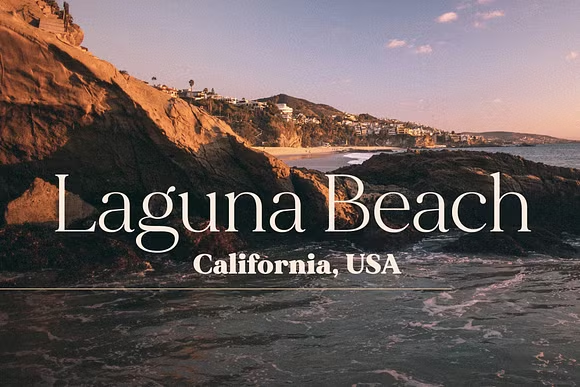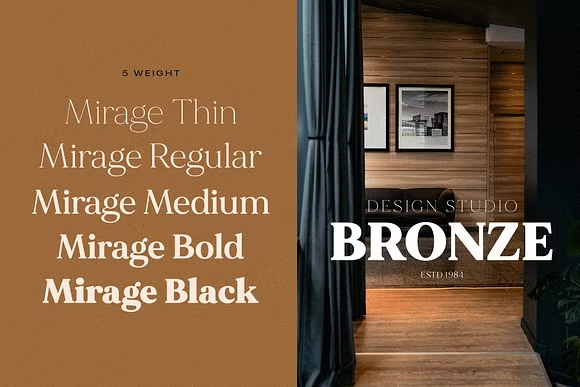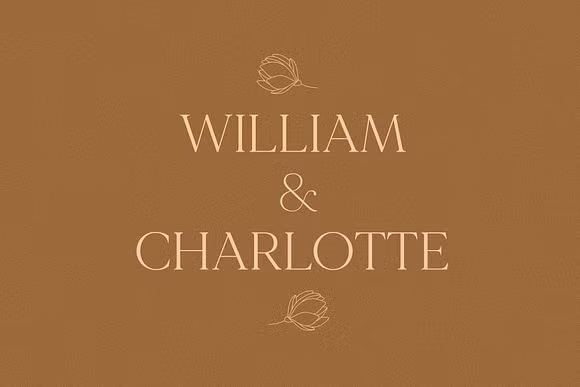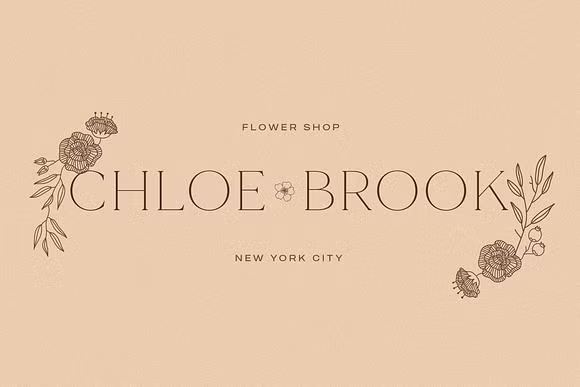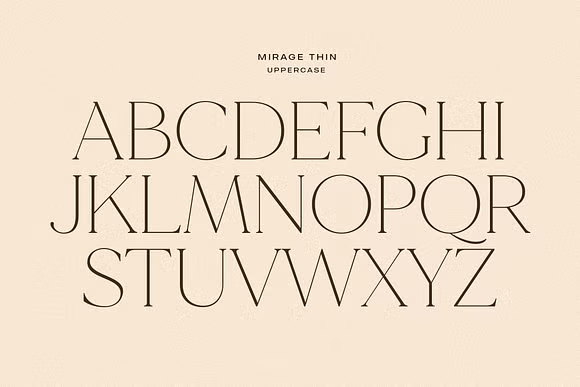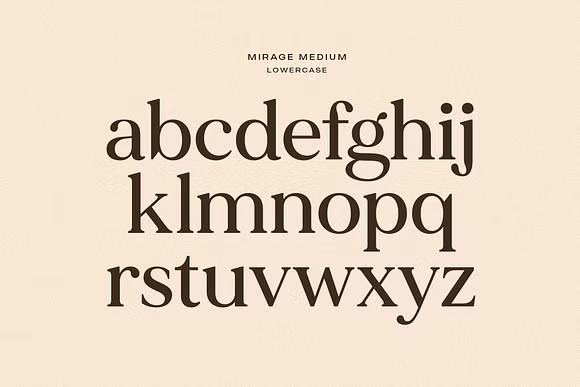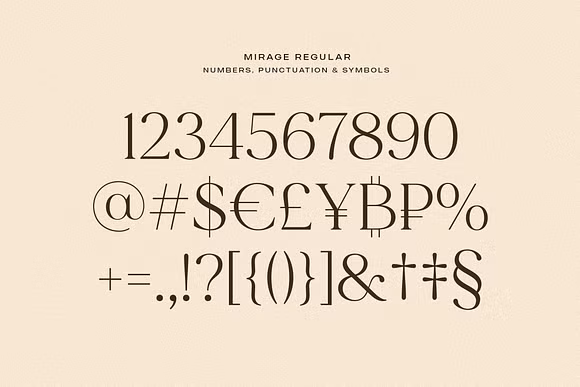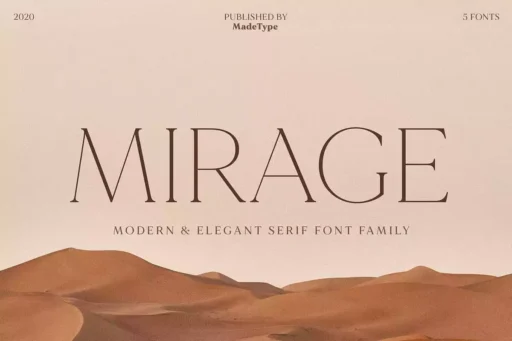
MADE Mirage Font
Made Mirage is a unique font created by MadeType, a world-class design studio, which underlines the importance of typography as a primary element of visual communication. This font reflects the concept of the modern and stylish type, which combines the contrast of the basic shapes with the refined Serif elements. This font has a long history, visible characteristics, and versatility due to the fact that it is perfect for designers and artists who want to bring some fairy-tale atmosphere to their works.
MADE Mirage began with MadeType, a type foundry company that provides superior and quality fonts. Tommy and Sam established the type foundry MadeType. The same designers who introduced MADE Tommy Font, a renowned sans serif font. Their aim is to produce quality fonts that solve the problems that exist in today’s design world. They have a large library of fonts best for logos and texts in different settings.
MADE Mirage has several peculiarities that are not characteristic of other typefaces and make it special. Some of its features include the use of very thin and thick lines in the design process. This contrast produces a heightened visual tension and makes the font look strong, assertive, and eye-catching. Nonetheless, the font does not appear confident and assertive, as it has a sophisticated and classy design through its serifs and proportions.
The letters in MADE Mirage have a geometric structure which gives the design a contemporary look. This geometric approach of the font makes it really clear and easy to identify regardless of its size or the medium it is displayed on. However, the serif part gives the font a conventional look, which means the font can work well for both contemporary and classic designs.
Another benefit of the MADE Mirage is that it is available in various weights and styles for different purposes. This versatility makes the font appropriate for use in different parts of the design, such as in headlines and paragraphs. The consistent style of the overall design across different weights helps create a unified concept, regardless of the application.
Many designers have incorporated the MADE Mirage font to design various elements owing to its flexibility and beauty. In branding and identity design, MADE Mirage is particularly useful. This font is elegant and contemporary at the same time, which is why it works well for logos, business cards, and other marketing materials. The contrast and the clean lines that the font has give a professional look and feel and sophistication to the brand, and this can greatly improve the perception of the brand.
For editorial design, MADE Mirage is outstanding in printed and digital materials. This font is highly legible and aesthetically appealing, making it ideal for use in magazines, books, and other online platforms. Its ability to hold the reader’s attention without losing readability makes it suitable both for the headlines and the text, thus creating a consistent and professional appearance.
MADE Mirage has also done a commendable job in the area of web design. Thanks to smooth lines and a more contemporary style, it will look great on digital screens and make the interaction with users more enjoyable. The font is very much geometric in design and helps to make the text clear and easy to read even on the small screens of mobile devices, which makes it perfect for websites and applications.
Although MADE Mirage font has a set of features that distinguishes it from other fonts, there are other fonts that you can use as substitutes in some design situations since they have some similarities with MADE Mirage. Other examples of fonts that have high contrast between thick and thin strokes and have an elegant serif are Playfair Display, Bodoni, and Didot.